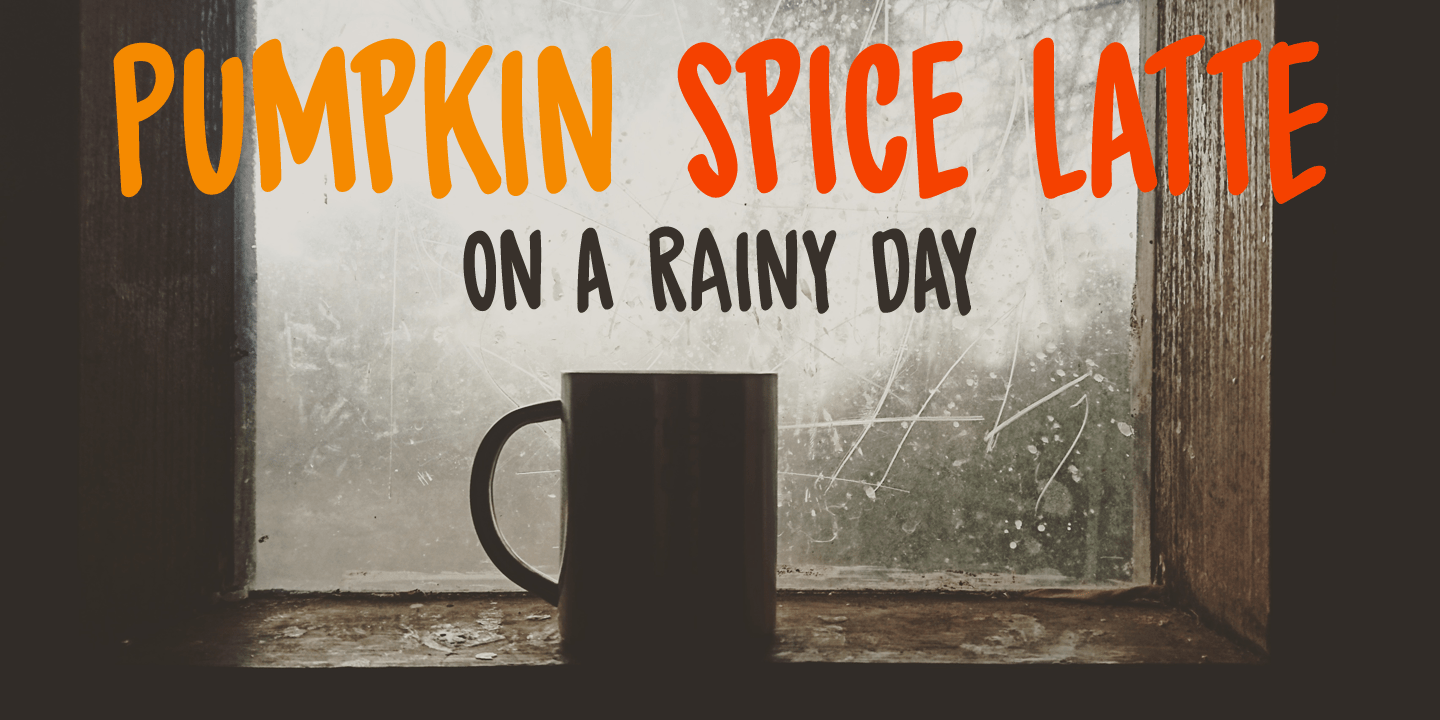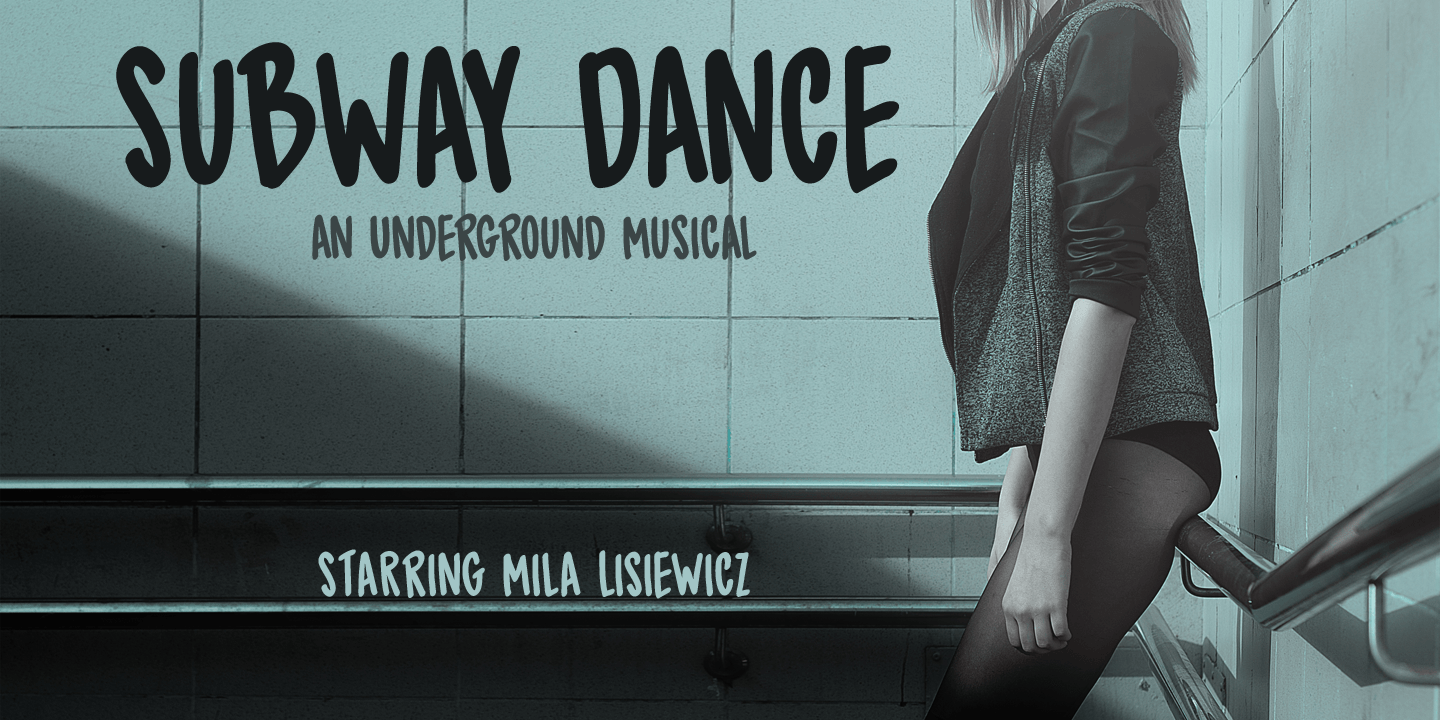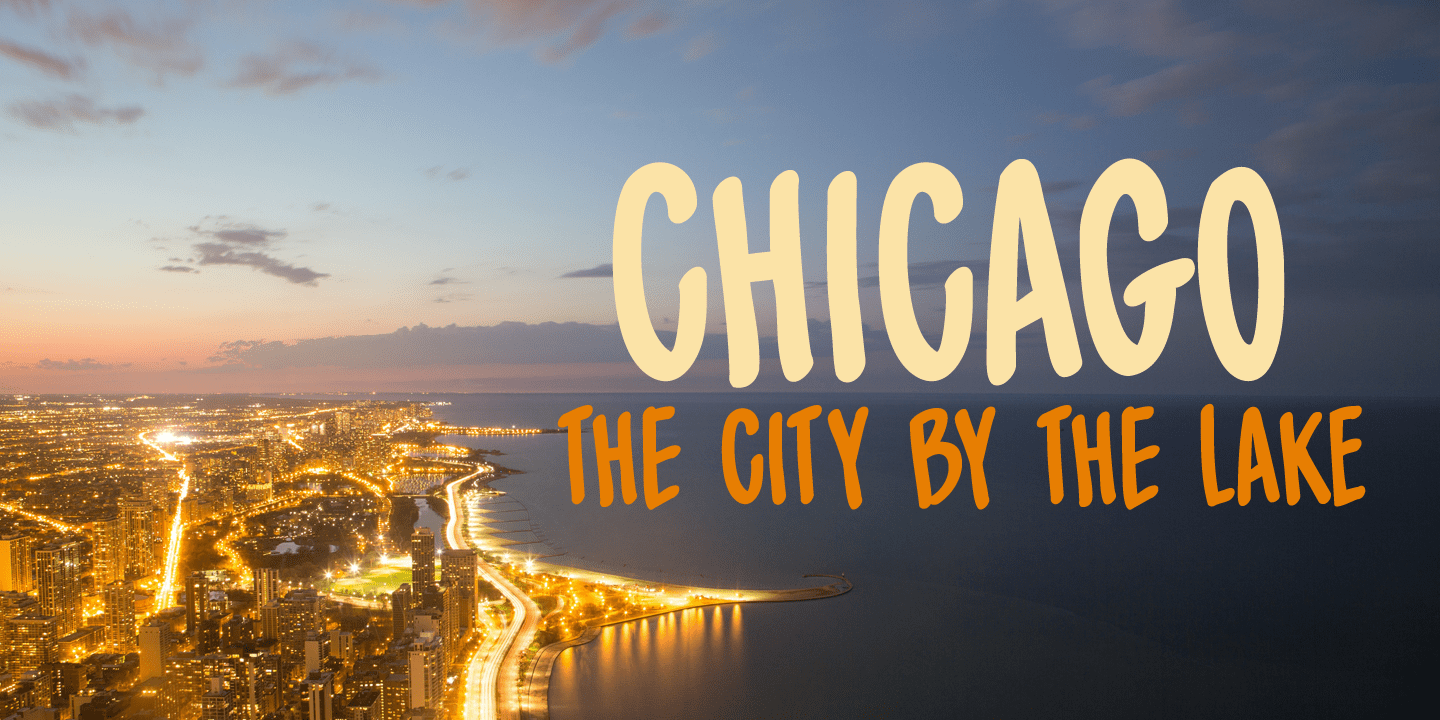
About Spiced Pumpkin
I don\’t know about the weather on your side of the globe, but here it is mighty cold! I was trying out a new technique of font-making AND I was craving a pumpkin spice latte, so I named this font Spiced Pumpkin. Spiced Pumpkin is a rounded, thin, all…